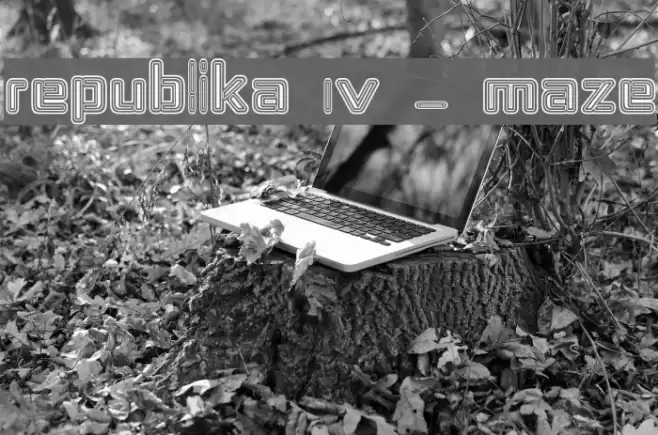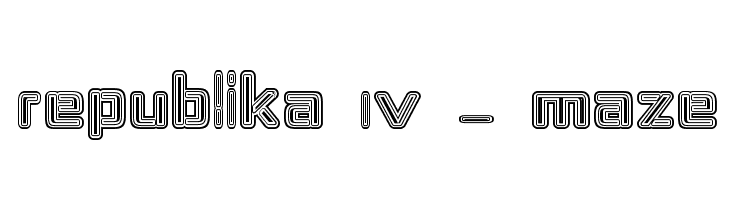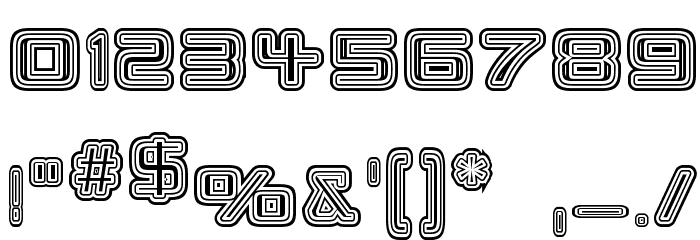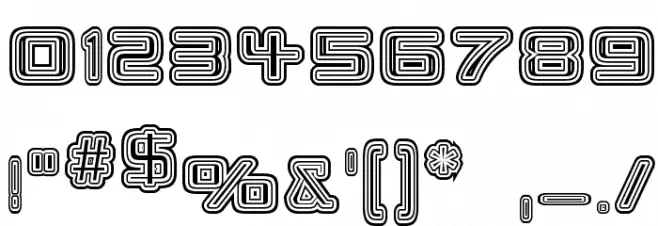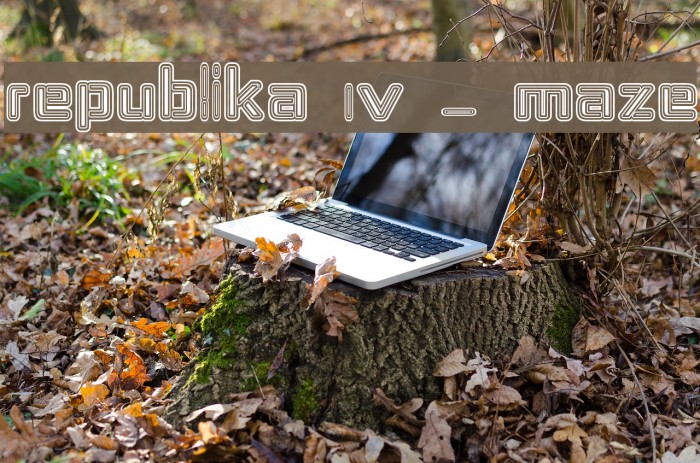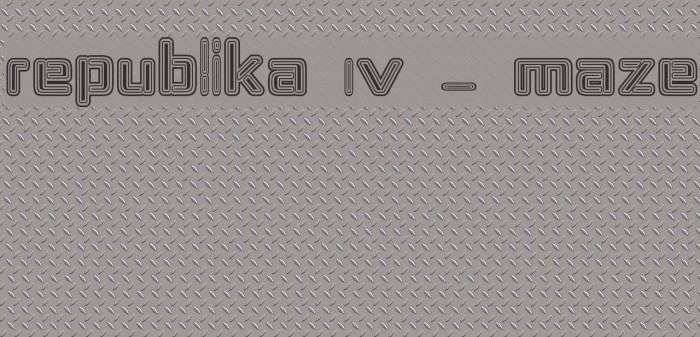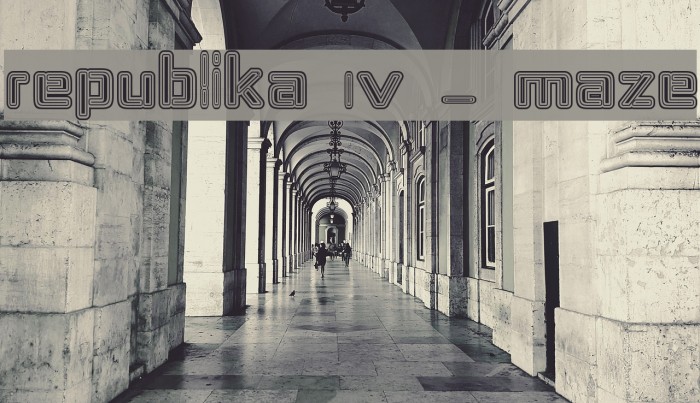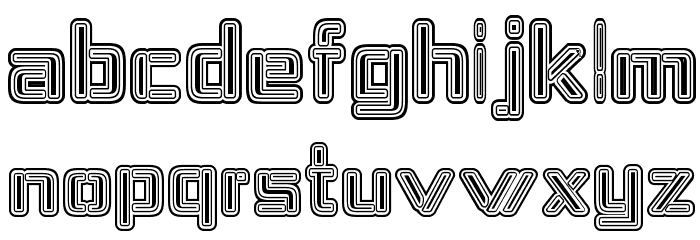
Republika IV - Maze Font
Republika IV - Maze Description
This font features a unique, maze-like design with a bold, outlined structure. Each character is composed of multiple parallel lines that create a sense of depth and complexity. The geometric shapes are consistent across both uppercase and lowercase letters, as well as numbers and special characters. The style is highly decorative, making it stand out with its intricate patterns. The font's design is reminiscent of retro or futuristic themes, offering a visually striking appearance that is both playful and sophisticated.
A bold, maze-like decorative font with intricate, outlined characters from Uncategorized fonts.
- Proposed Projects: Ideal for projects that require a standout display font, such as posters, album covers, video game titles, or branding for tech and entertainment industries.
- Overall Style: Futuristic, Retro